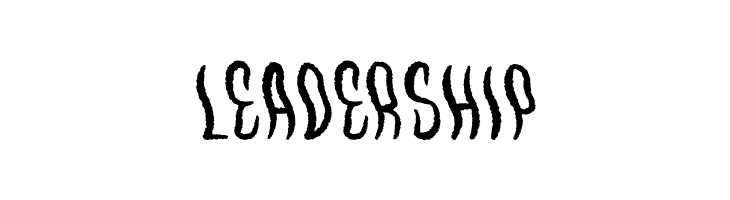
• Wave Warrior Outlne Italic
A bold, outlined, italic font with a modern, dynamic style.
• Wave Warrior Semi-Italic
A bold, semi-italic font with a dynamic and modern style.
• Wave Warrior Semi-Leftalic
A bold, semi-italic font with a modern, dynamic style and tight spacing.
• Wave Warrior Spaced
A bold, blocky font with rounded corners and a modern, industrial style.
• Wave Warrior Spaced Italic
A bold, italicized font with a modern, energetic style.
• Wave Warrior Super-Italic
A bold, italic font with a dynamic and modern style.
• Wave Warrior Super-Leftalic
A bold, left-leaning font with a dynamic and energetic style.
• wave zone
A bold, geometric font with modern, angular design elements.
• wave zone
• wavecraft
A modern, tall, and narrow font with a geometric and elegant style.
• wavecraft
A modern, geometric font with a sleek, condensed style.
• Waved Line
• WavEd Regular
( Fonts by Edyta Majewska )
A bold, woodcut-style font with a rustic, handcrafted appearance.
• wavefont
( Fonts by Glumbosch )
A geometric, maze-like font with intricate, angular patterns.
• wavefont
A decorative font with intricate, maze-like geometric patterns.
• Wavepool
• Wavepool Regular
• waver [BRK]
A bold, wavy font with a dynamic, three-dimensional effect.
• Wavering
A playful, handwritten-style font with bold, flowing strokes.
• Waverley
A modern, clean font with a playful touch and consistent stroke width.
• Waverley Bold
A bold, modern font with geometric influences and excellent readability.
• Waverley Bold Italic
A bold and italicized font with dynamic, slanted characters and strong visual impact.